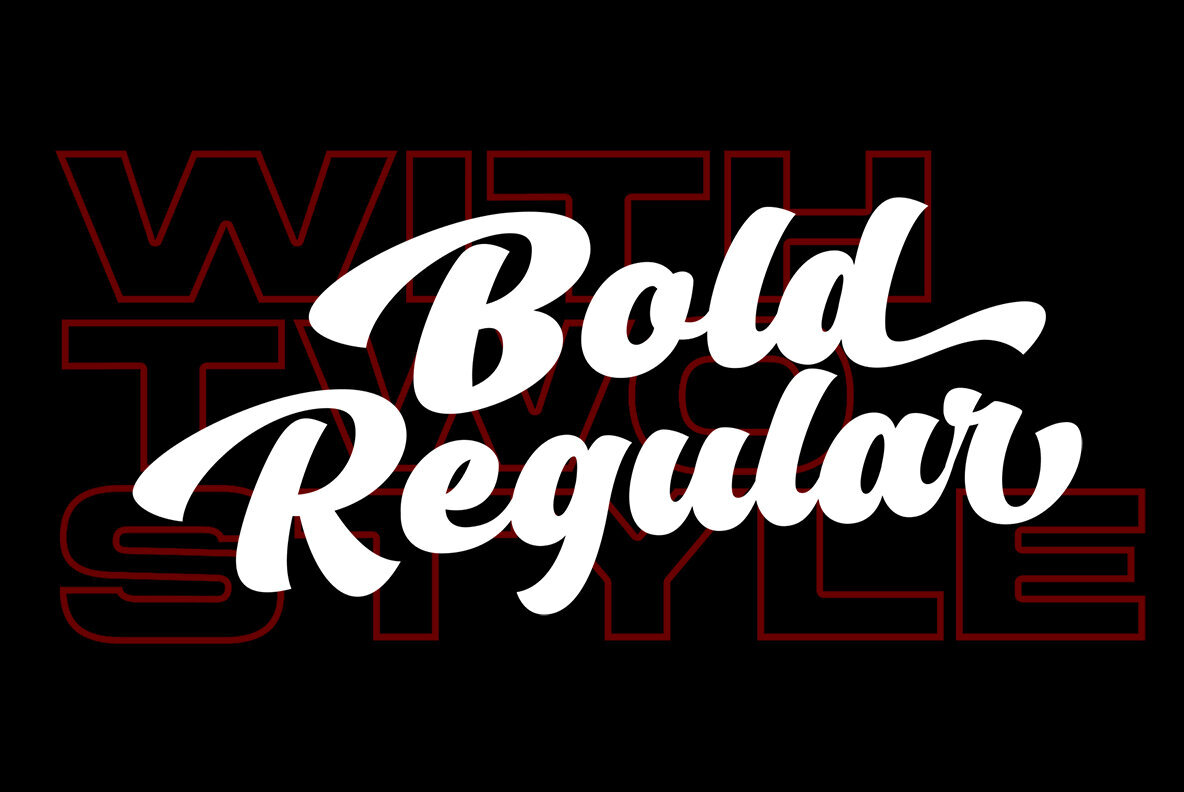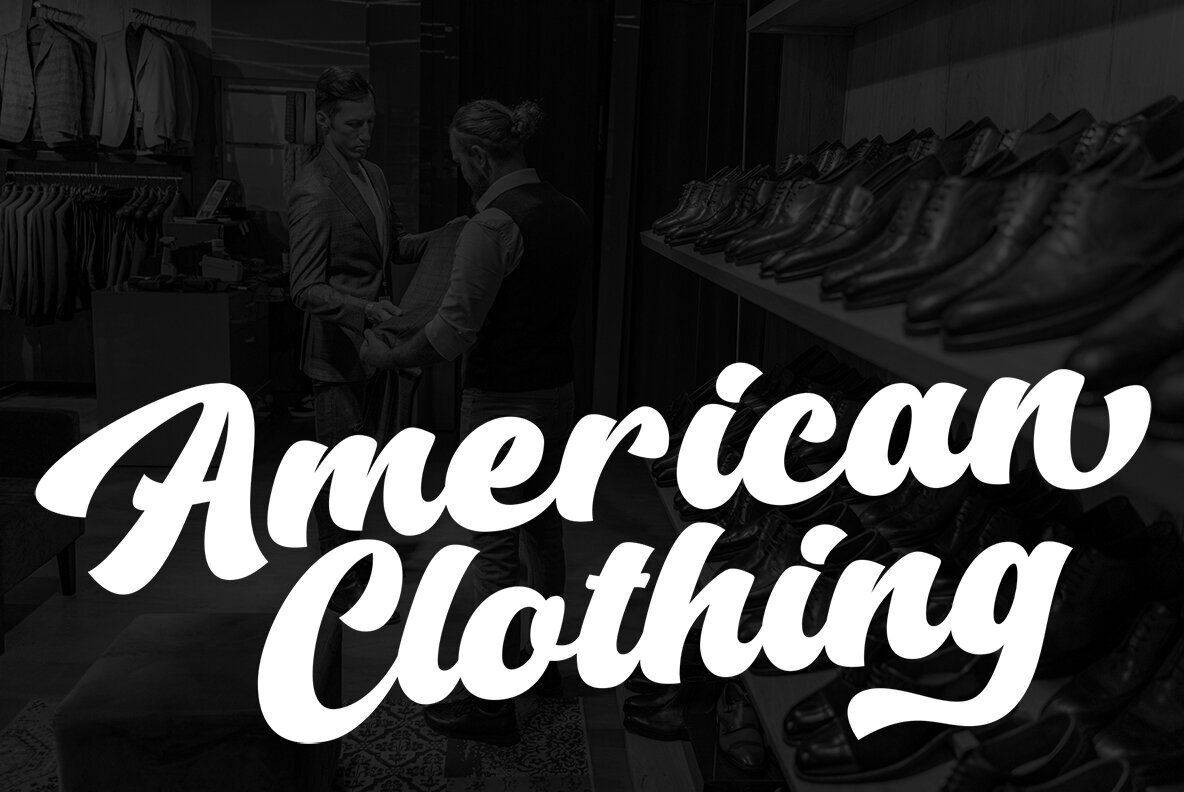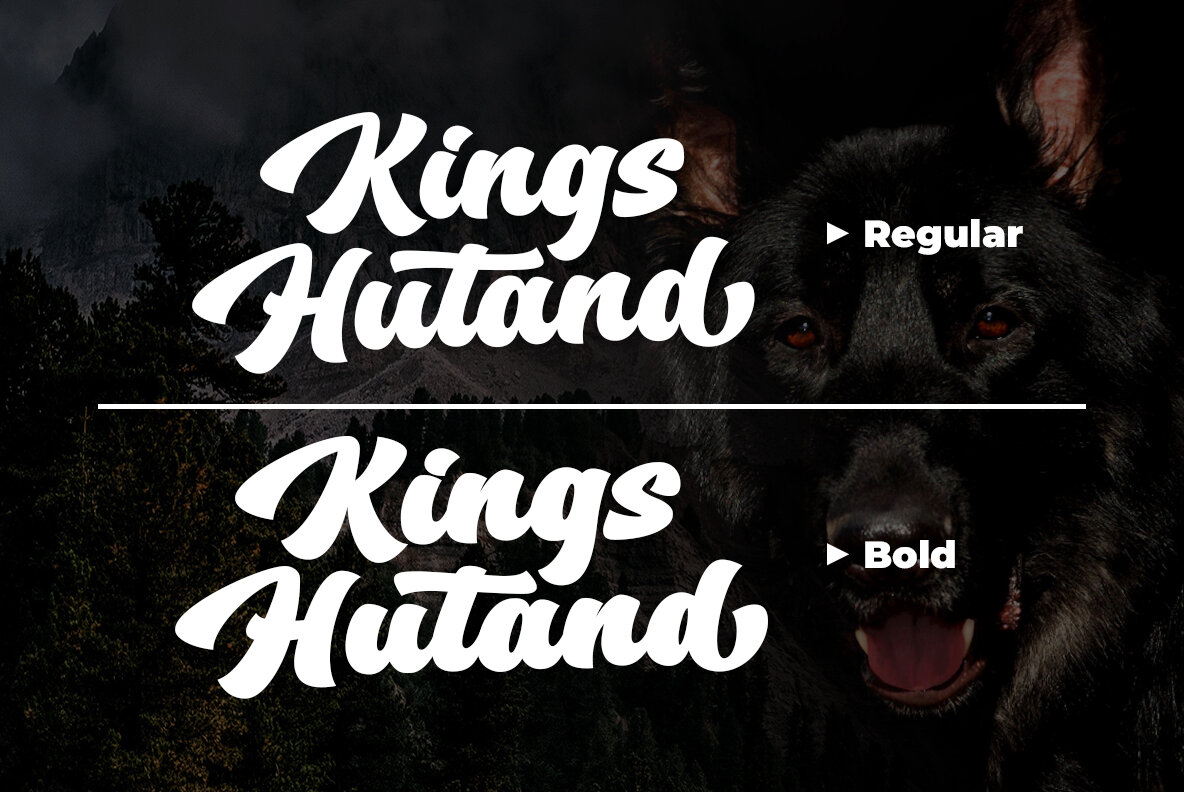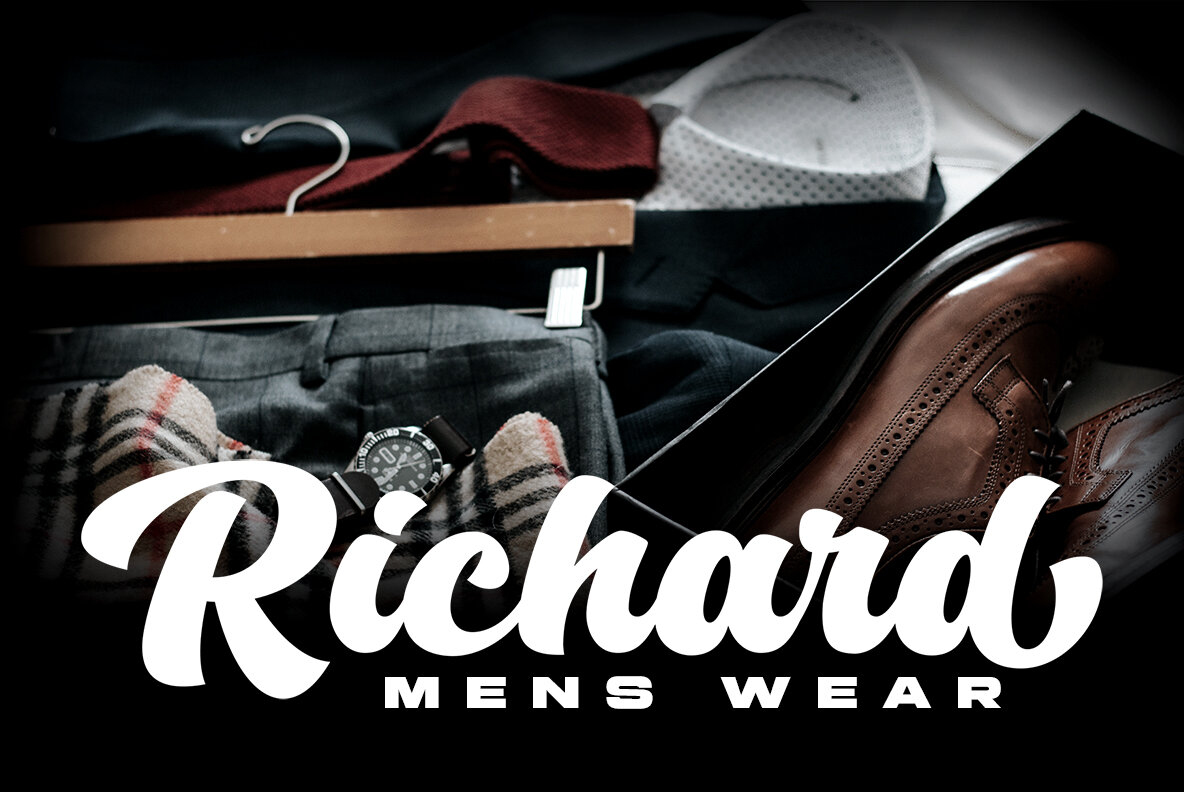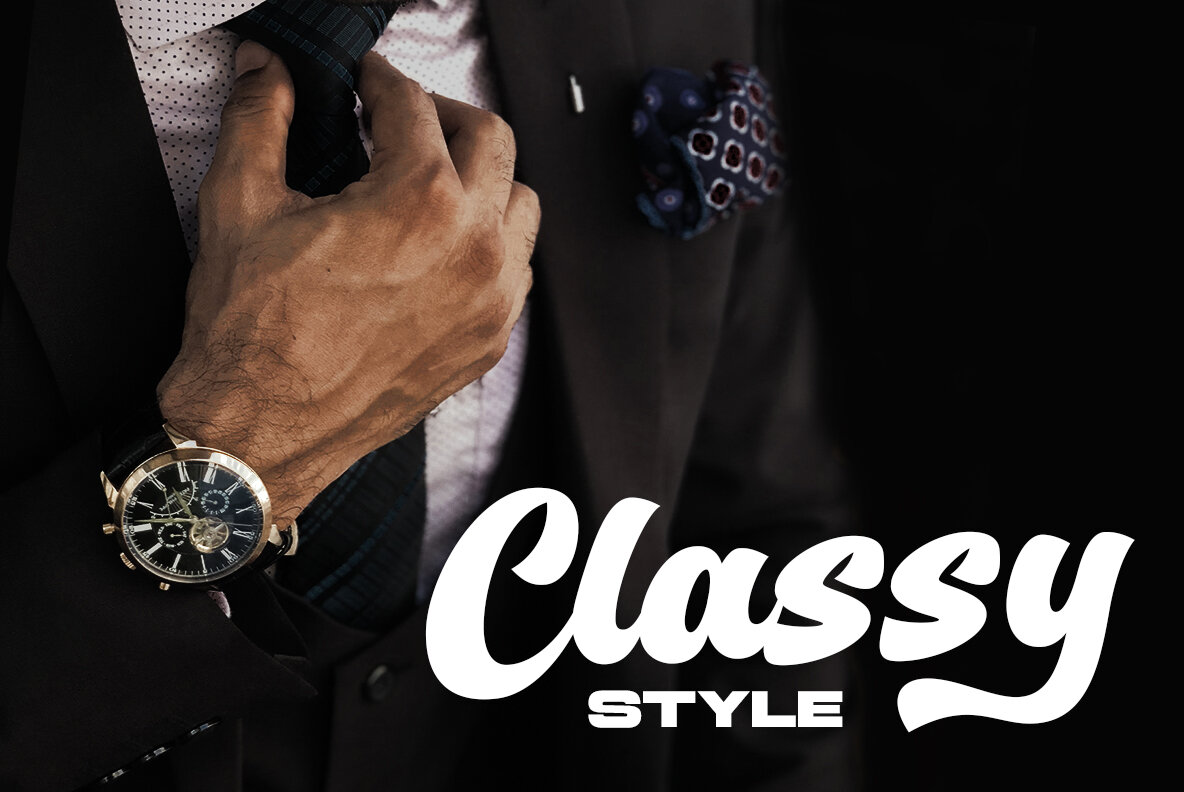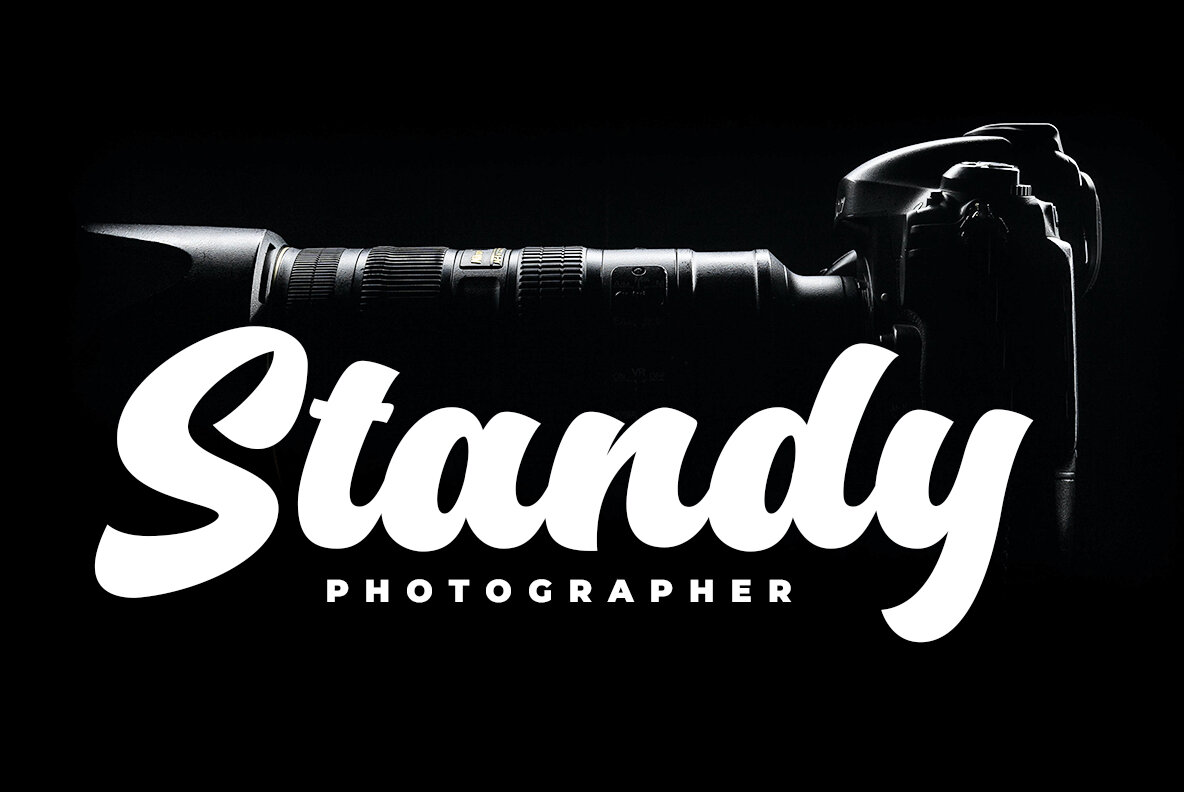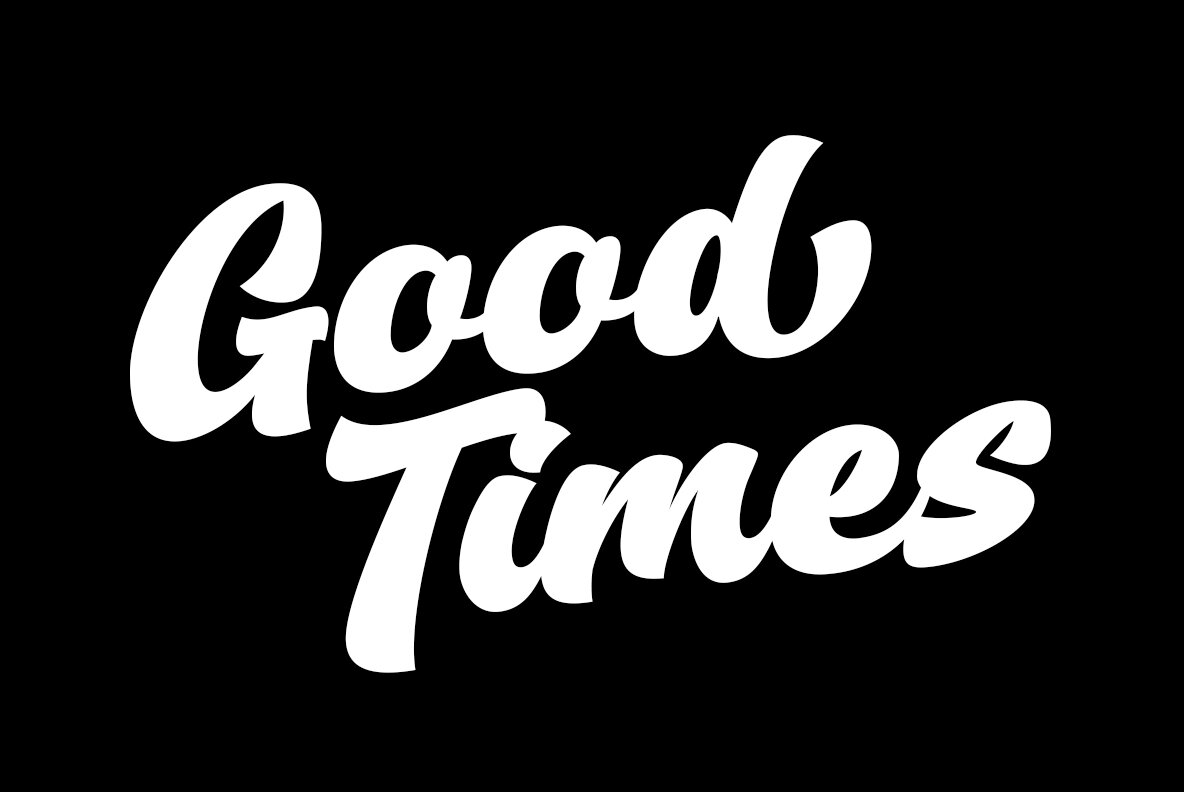
Kings Hutand Font
Kings Hutand Regular
Kings Hutand Bold
Kings Hutand is a script type family of two fonts, a modern script font with bold style and modern looks. Special fonts for brands/companies that want a different look from the others. Because the characters are iconic and memorable. Make your brand well remembered by customers. Have a unique style that will make your design look iconic. Kings Hutand can be used for logo, branding, packaging and and anything that requires bold script font. This font has of alternative characters,swashes, and ligatures that will make your design unique and beautiful. What’s Include : Thank you for your purchase! Hope you enjoy with our font!